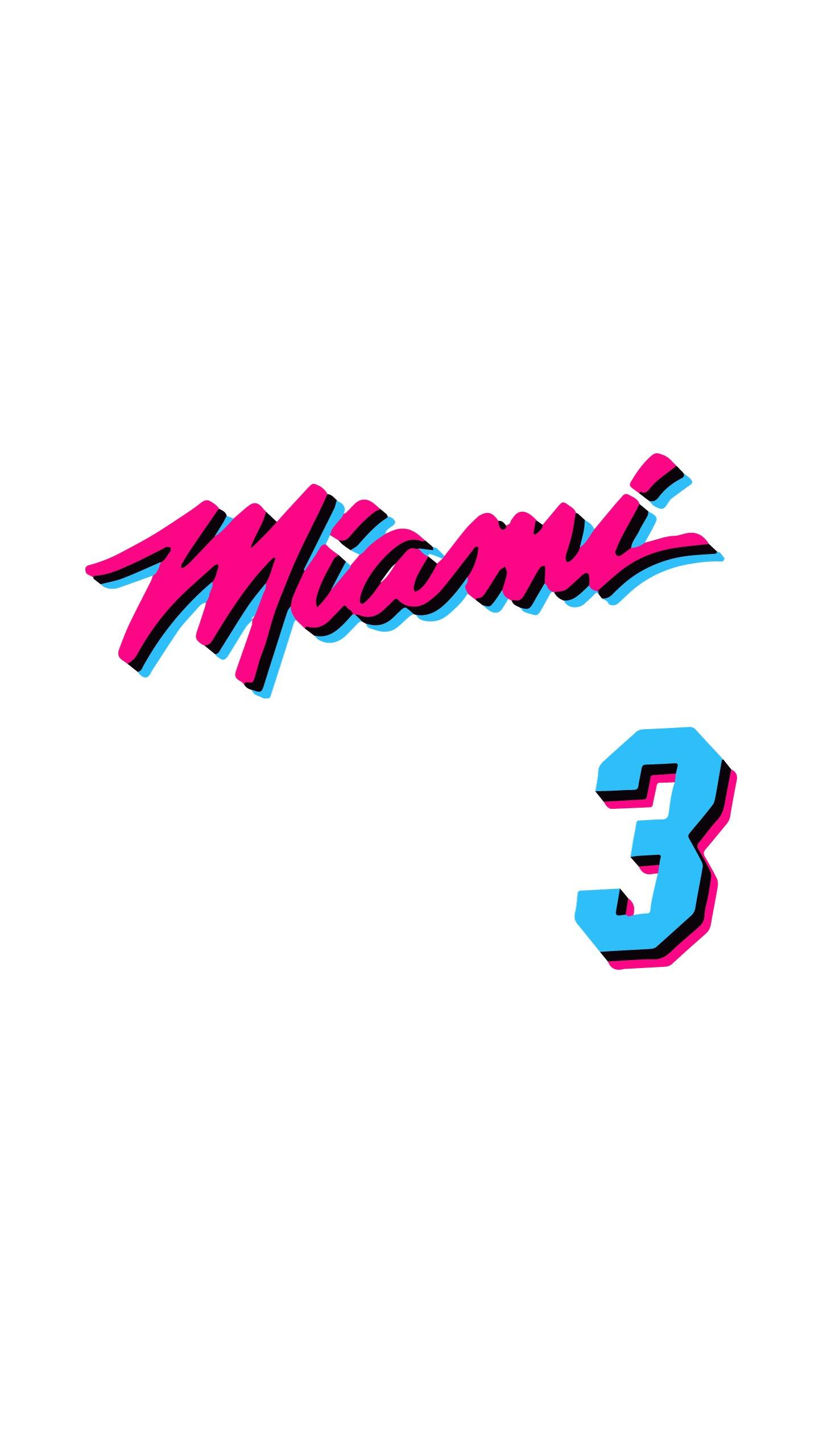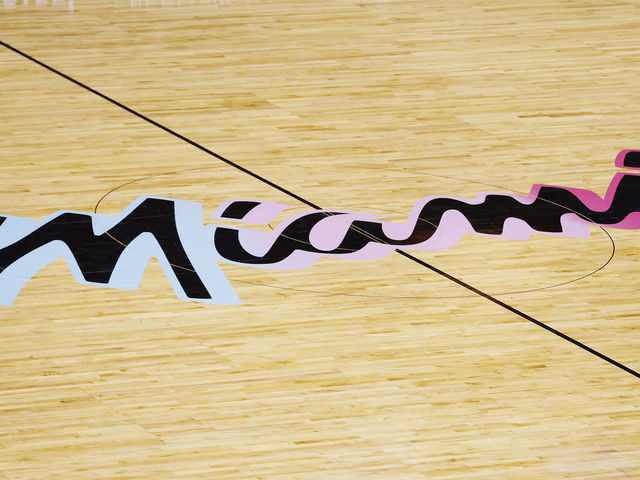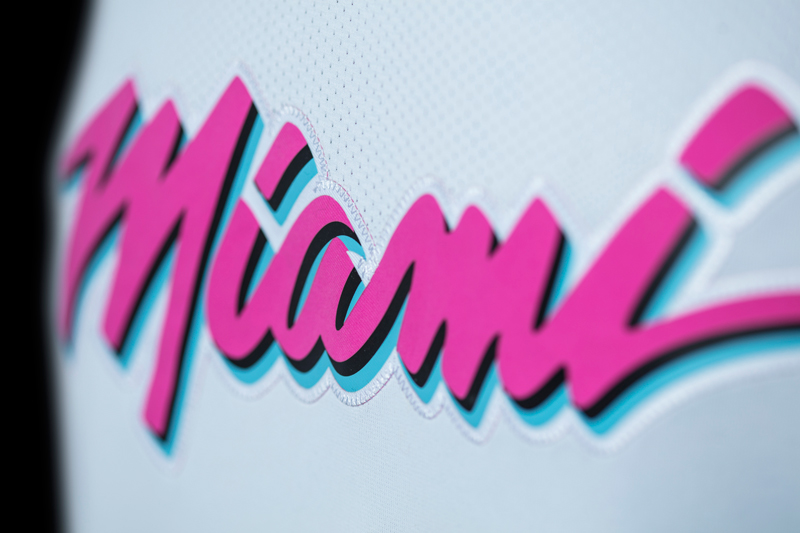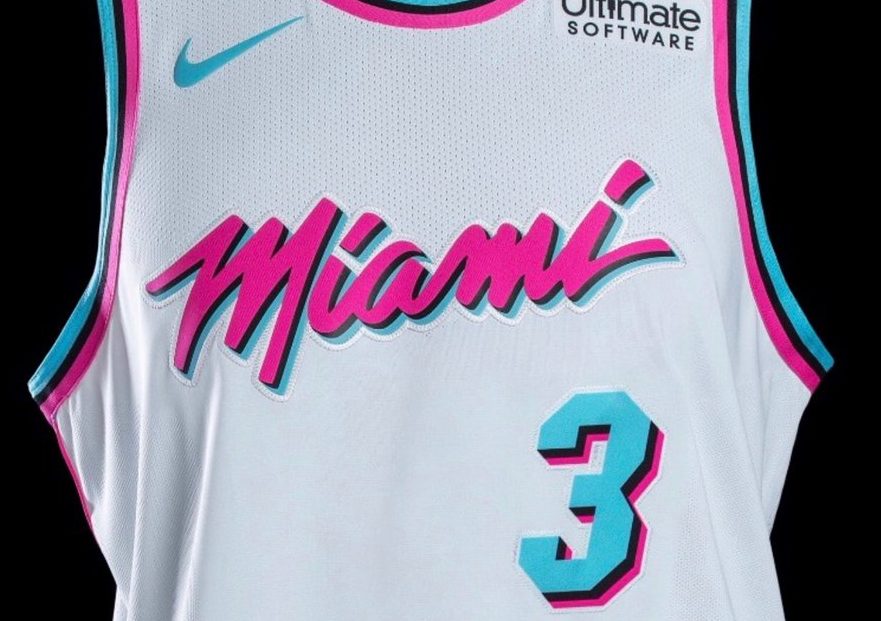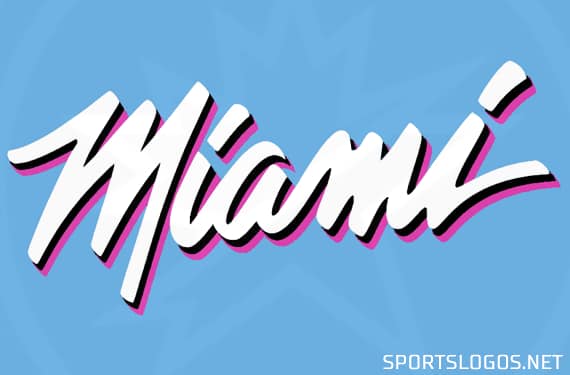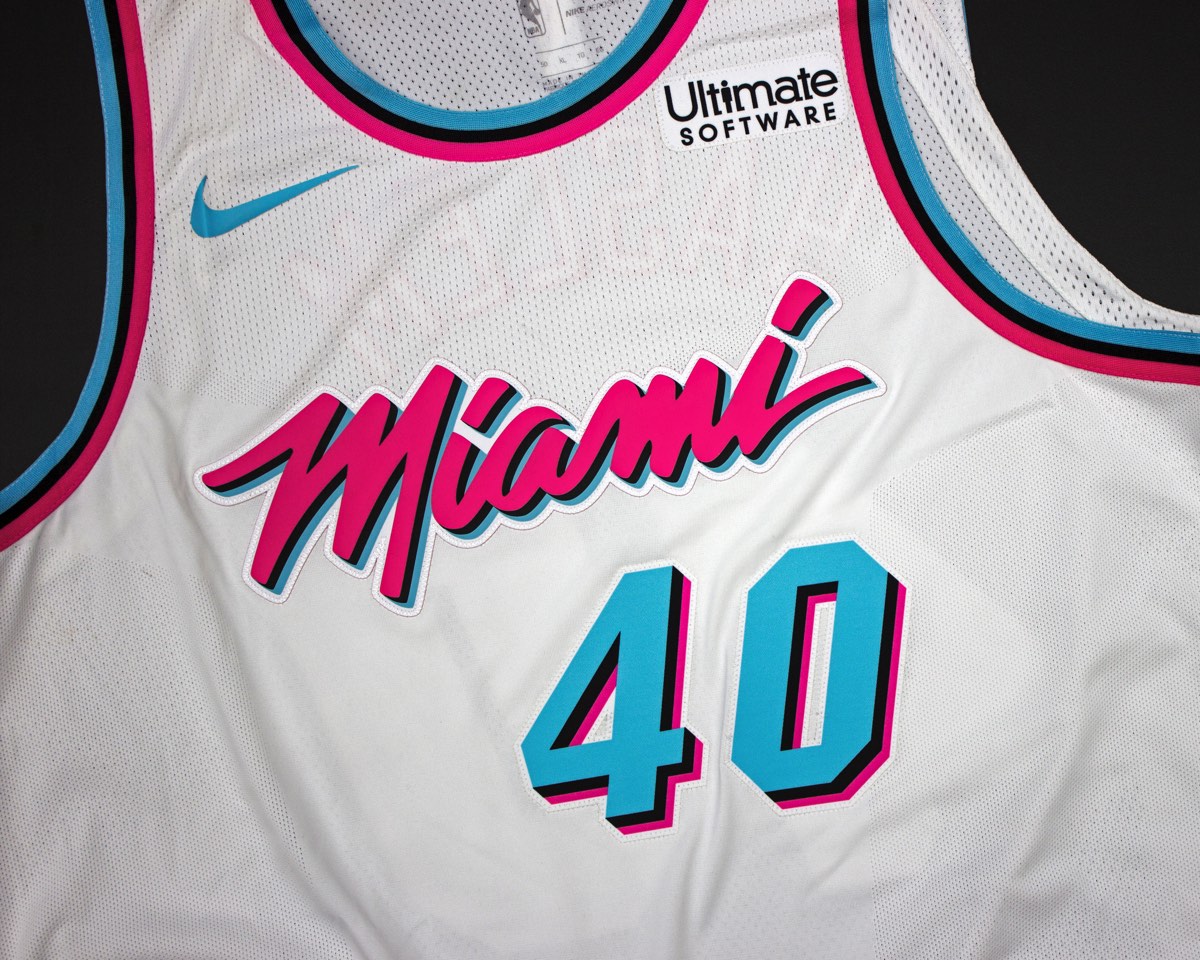
Miami heat vice logo font. Im looking for the font for the name on the back myself. Feb 28 2020 - We are providing Miami Heat Font here for free that includes free font script font cursive font logo font various font elegant fonts. 14 Best Helvetica Font Everyday Logo Images Helvetica Font International Typographic Style.
5 out of 5 stars. Hi guys Im in the middle of creating a basketball uniform for our team and we have decided to make our design replicate the black Miami Heat Vice jerseys. I need help with the font for the front of the jerseys and need someone to create a logo the same as the Miami one but reading Mambas instead.
That would be Broadway Regular for the top line and Broadway Stencil on the bottom. Rookie Heat by Bogstav 1700 USD. Thank you in advance.
Feb 10 2020. EF Miami was designed by Achaz Reuss and published by ElsnerFlake. I believe its literally called Vice.
Miami Heat font Miami Vice styled logo 1. Feb 17 2018 at 1353. The flaming basketball now has 2 flat colors and the ring above it became inverted.
Morris Fuller Benton a typeface designer designed this stunning typeface. Logo Text Add Symbol. In 2000 Miami Heat decided to make some small changes to their logo the structure and shape remain unchanged.
With oversized capitals and a streamlined semi-italic connecting lower case it has elements of Art Deco and retro futurism. Sold Tyler Herro Miami Heat Black Vice Nike Swingman Jersey In Cooper City Letgo. He is also known for producing many fonts in the past and is considered for his amazing designing work.
Broadway is a popular Art Deco style typeface designed by Morris Fuller Benton in 1927. A number of foundries have issued the font and its vari.